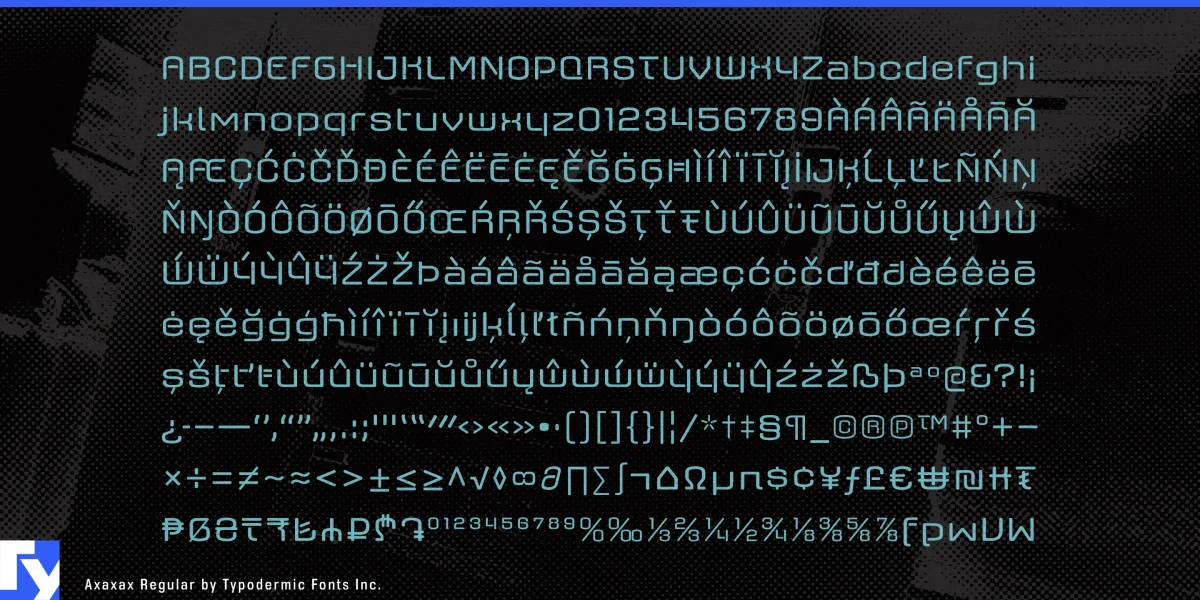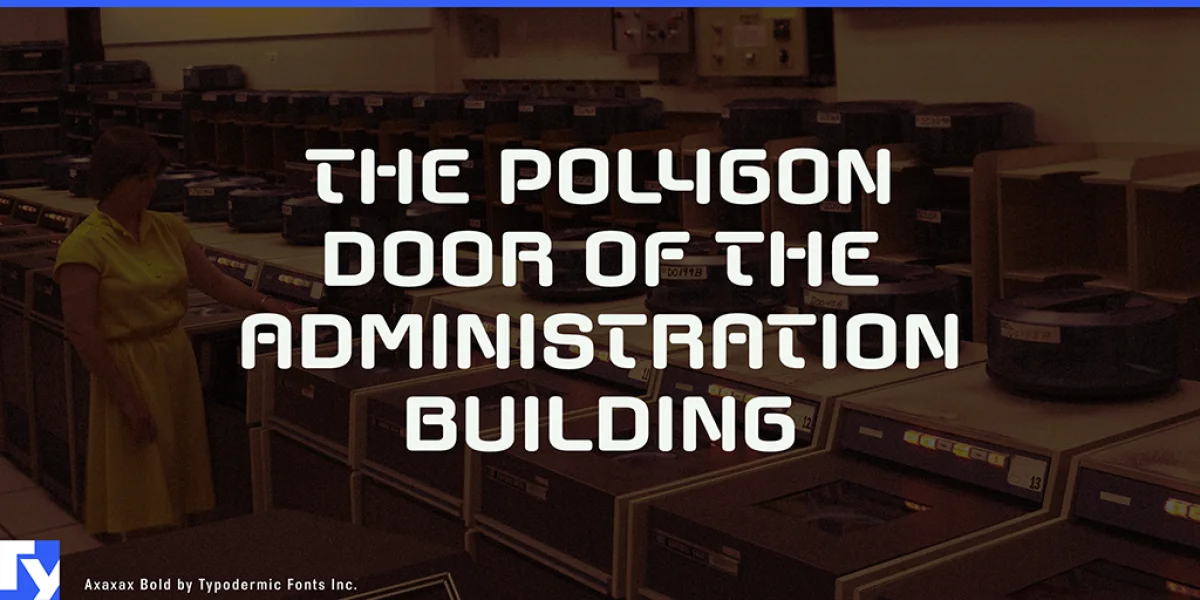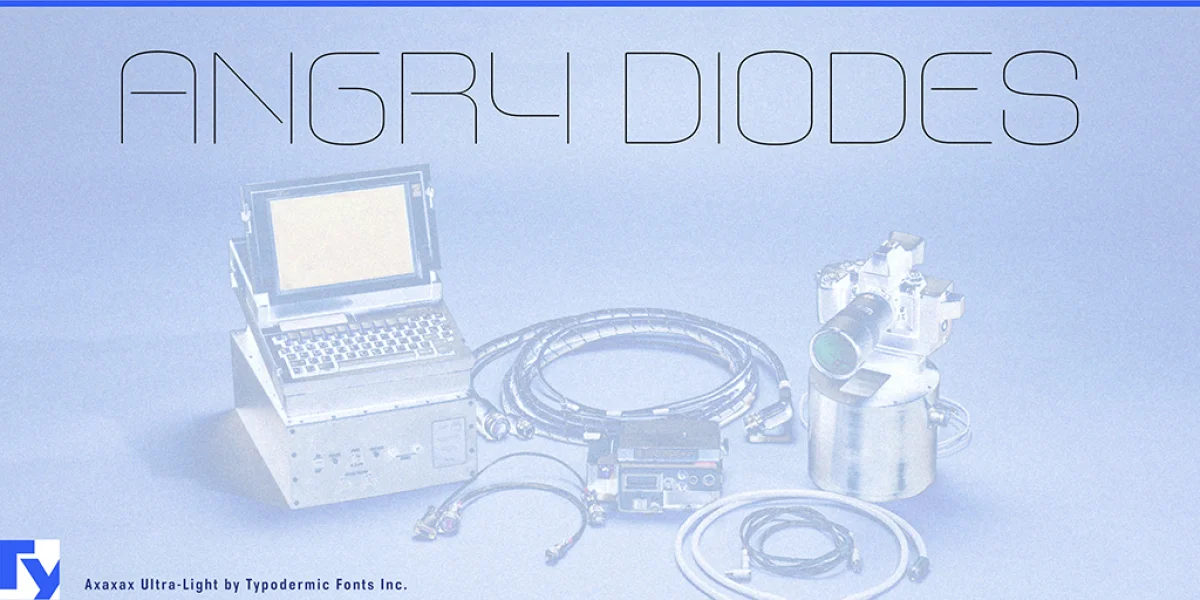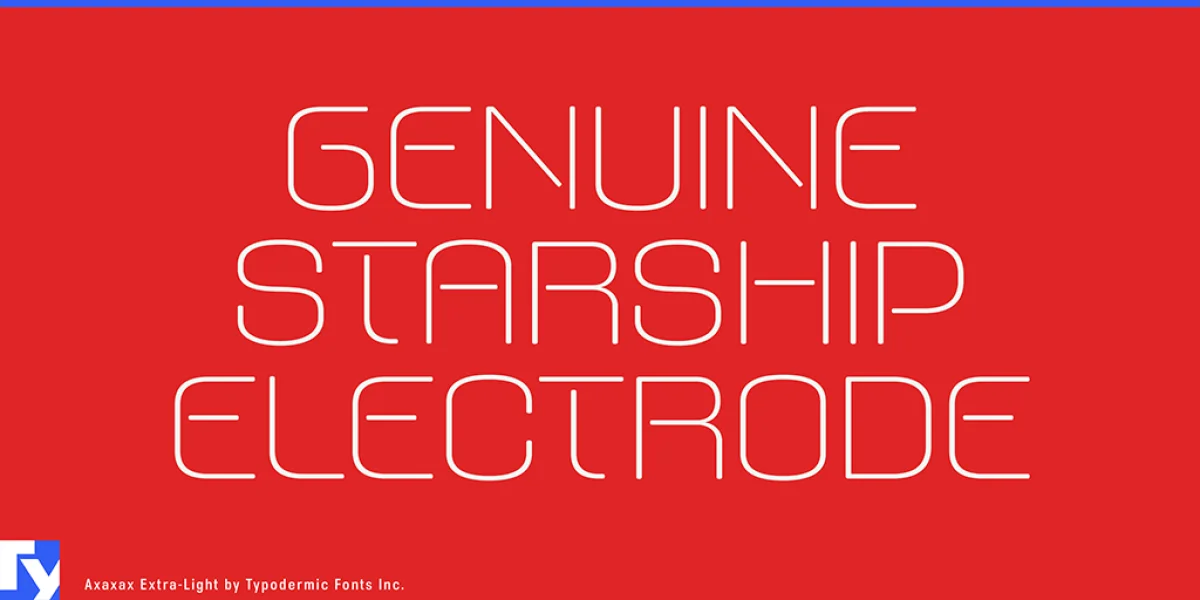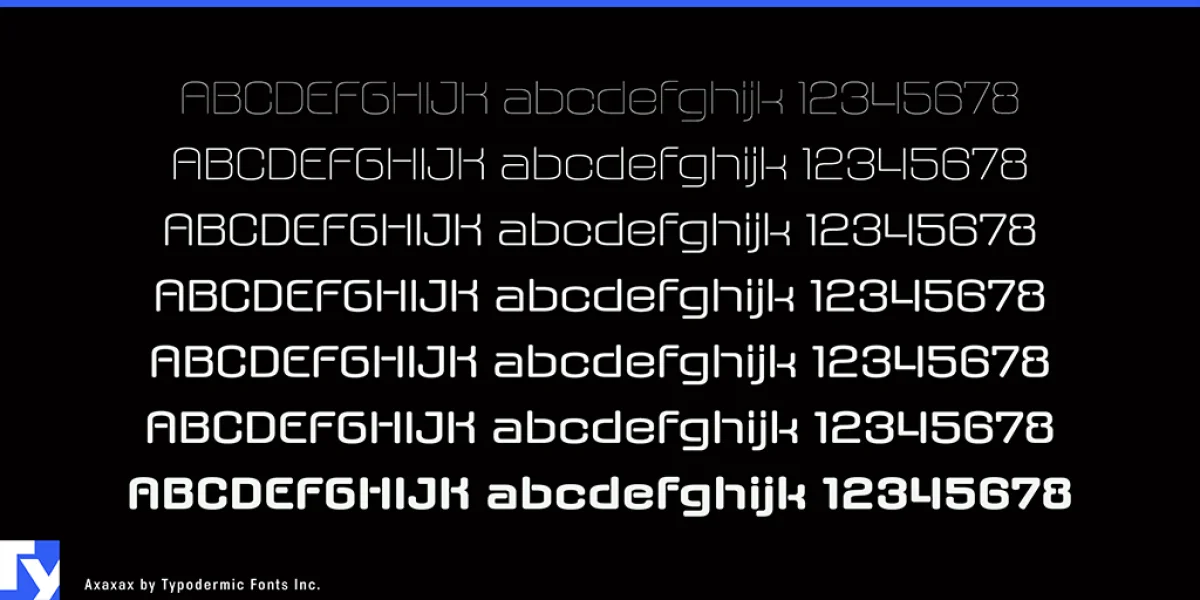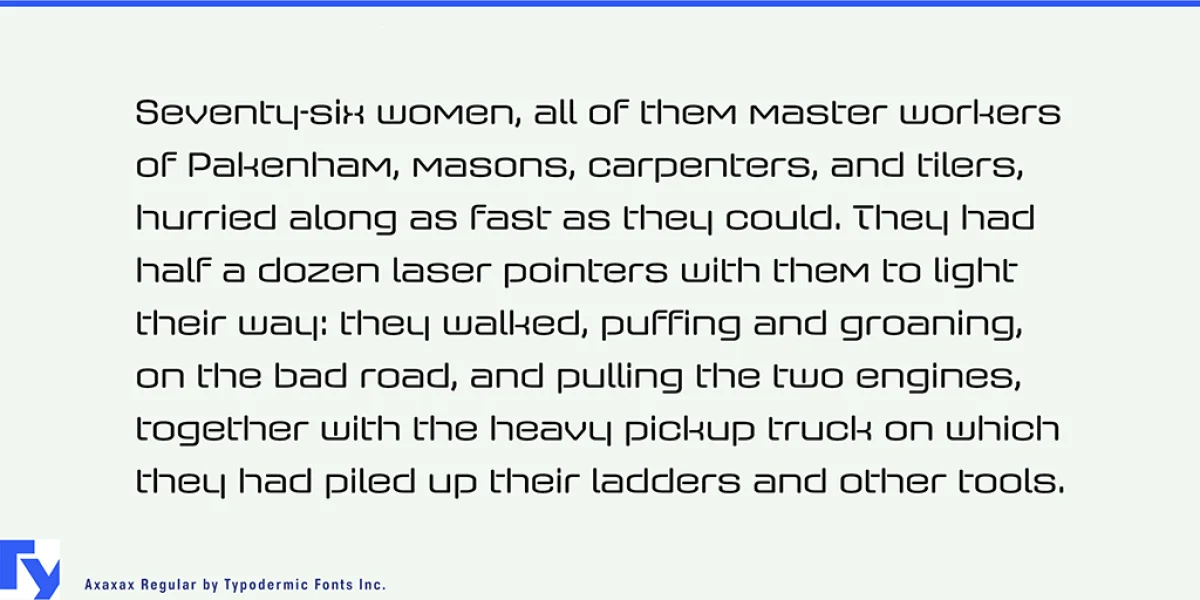
Axaxax is an unusual, futuristic typeface with detached, rounded lines. The lines are reminiscent of neon tubes, plotters, circuitry, and lasers. Its stark design will lend your message a technologically precise voice. Axaxax is available in the following weights: Ultra-Light, Extra-Light, Light, Book, Regular, Semi-Bold, and Bold. Most Latin-based European writing systems are supported, including the following languages. Afaan Oromo, Afar, Afrikaans, Albanian, Alsatian, Aromanian, Aymara, Bashkir (Latin), Basque, Belarusian (Latin), Bemba, Bikol, Bosnian, Breton, Cape Verdean, Creole, Catalan, Cebuano, Chamorro, Chavacano, Chichewa, Crimean Tatar (Latin), Croatian, Czech, Danish, Dawan, Dholuo, Dutch, English, Estonian, Faroese, Fijian, Filipino, Finnish, French, Frisian, Friulian, Gagauz (Latin), Galician, Ganda, Genoese, German, Greenlandic, Guadeloupean Creole, Haitian Creole, Hawaiian, Hiligaynon, Hungarian, Icelandic, Ilocano, Indonesian, Irish, Italian, Jamaican, Kaqchikel, Karakalpak (Latin), Kashubian, Kikongo, Kinyarwanda, Kirundi, Kurdish (Latin), Latvian, Lithuanian, Lombard, Low Saxon, Luxembourgish, Maasai, Makhuwa, Malay, Maltese, Māori, Moldovan, Montenegrin, Ndebele, Neapolitan, Norwegian, Novial, Occitan, Ossetian (Latin), Papiamento, Piedmontese, Polish, Portuguese, Quechua, Rarotongan, Romanian, Romansh, Sami, Sango, Saramaccan, Sardinian, Scottish Gaelic, Serbian (Latin), Shona, Sicilian, Silesian, Slovak, Slovenian, Somali, Sorbian, Sotho, Spanish, Swahili, Swazi, Swedish, Tagalog, Tahitian, Tetum, Tongan, Tshiluba, Tsonga, Tswana, Tumbuka, Turkish, Turkmen (Latin), Tuvaluan, Uzbek (Latin), Venetian, Vepsian, Võro, Walloon, Waray-Waray, Wayuu, Welsh, Wolof, Xhosa, Yapese, Zapotec Zulu and Zuni.